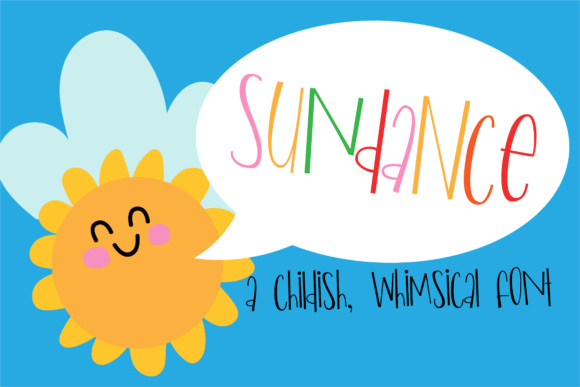
Introduce your designs to a world of childlike wonder with Sundance Font, a playful, enchanting script font by Illustration Ink. With its almost non-existent descenders and condensed design, Sundance commands attention as a stylish headline font, perfectly capturing the carefree spirit of youth.
Sundance Font is more than just a font; it's a gateway to a world where imagination roams free. Its whimsical, handwritten style breathes life into your designs, evoking the joy and innocence of childhood. Whether you're a seasoned designer or just starting out, Sundance Font is your passport to creating designs that resonate with your audience.
Unleash your creativity and let Sundance Font work its magic. From captivating social media posts to eye-catching posters and flyers, this font adds a touch of whimsy that's sure to leave a lasting impression. Transport your audience to a realm of dreams and laughter with every word you write.
So why settle for ordinary when you can ignite your designs with the magic of Sundance Font? Embrace the power of playfulness and watch as your designs take on a life of their own. Let Sundance Font be your creative companion, crafting designs that spark joy, ignite smiles, and leave an indelible mark on your audience.